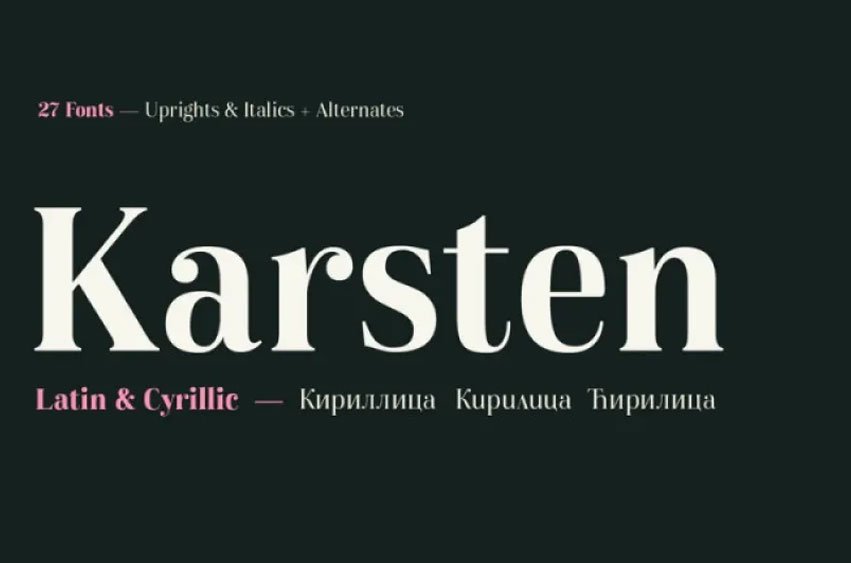
Karsten Font was inspired by signs from old Dutch buildings in Java, before eventually evolving into its current state as a mix of modern design. This font is named in honor of Herman Thomas Karsten a Dutch architect who contributed significantly to both architecture and town-planning in Indonesia.
Available in nine weights from thin to black with its accompanying italics, this font provides numerous styles to help you find your ideal style for use as headlines or paragraphs.